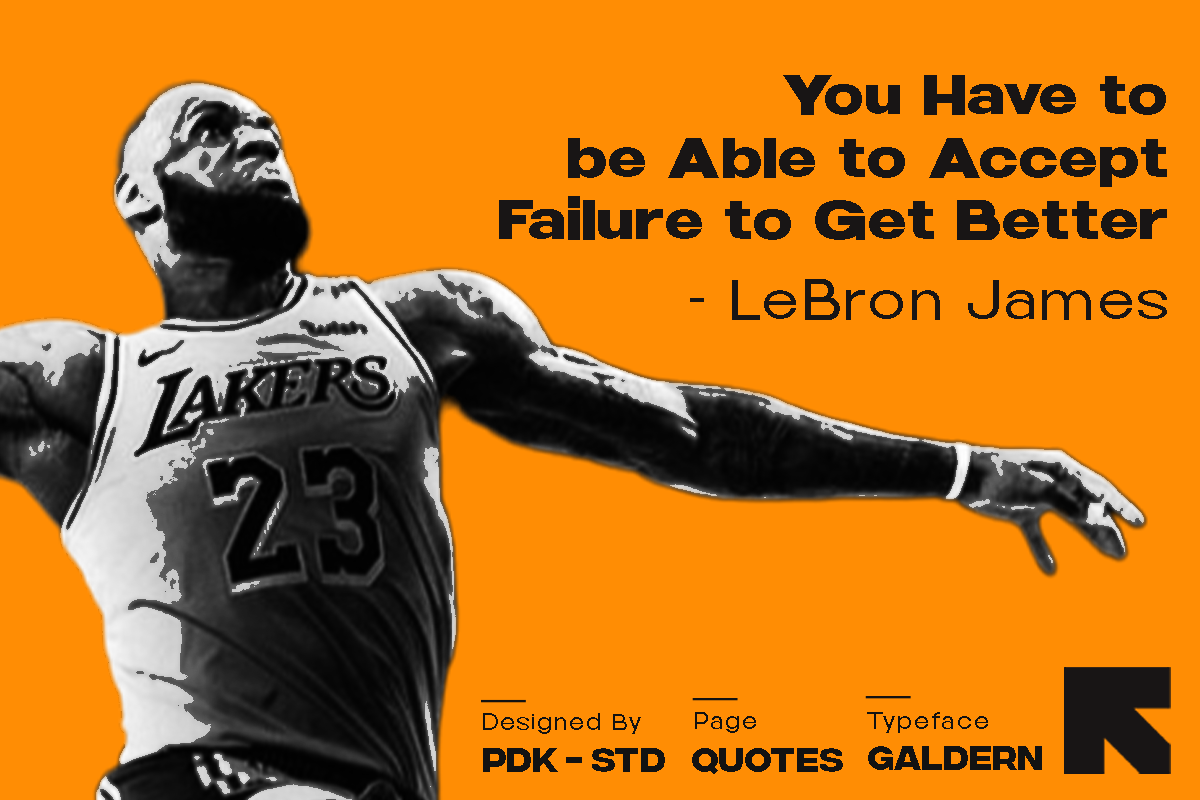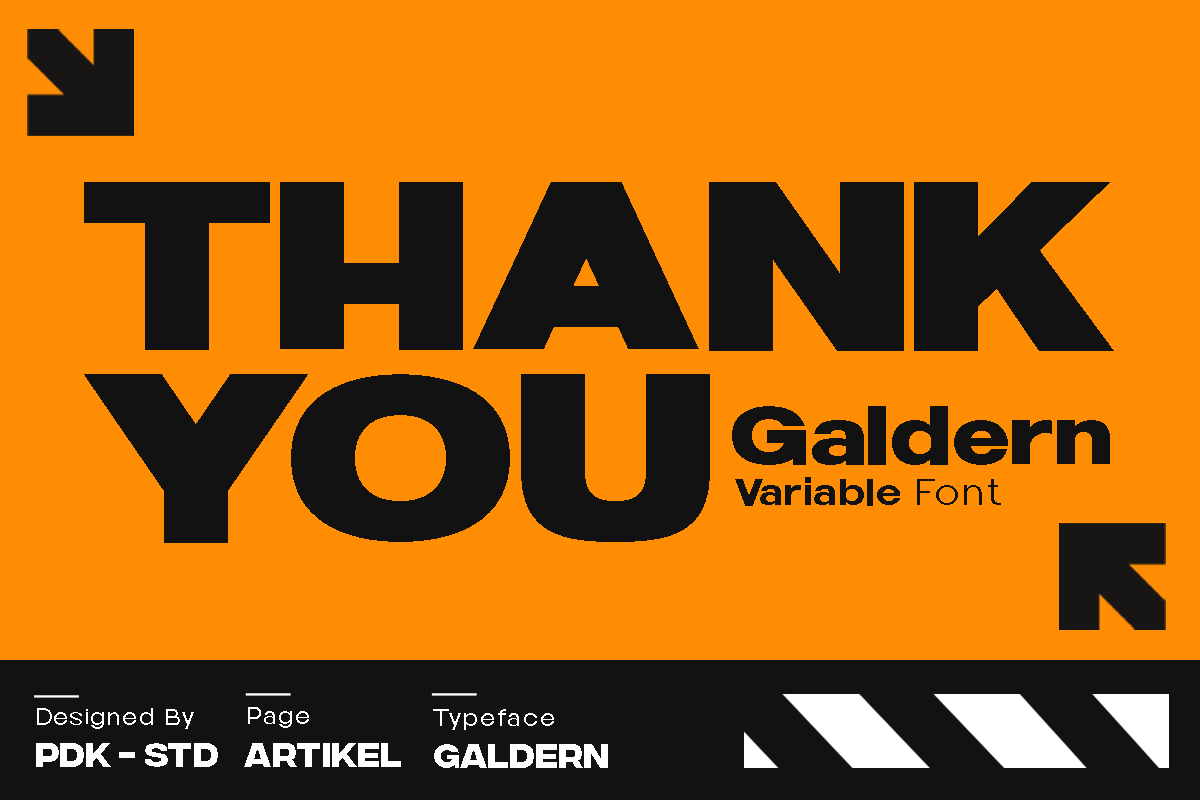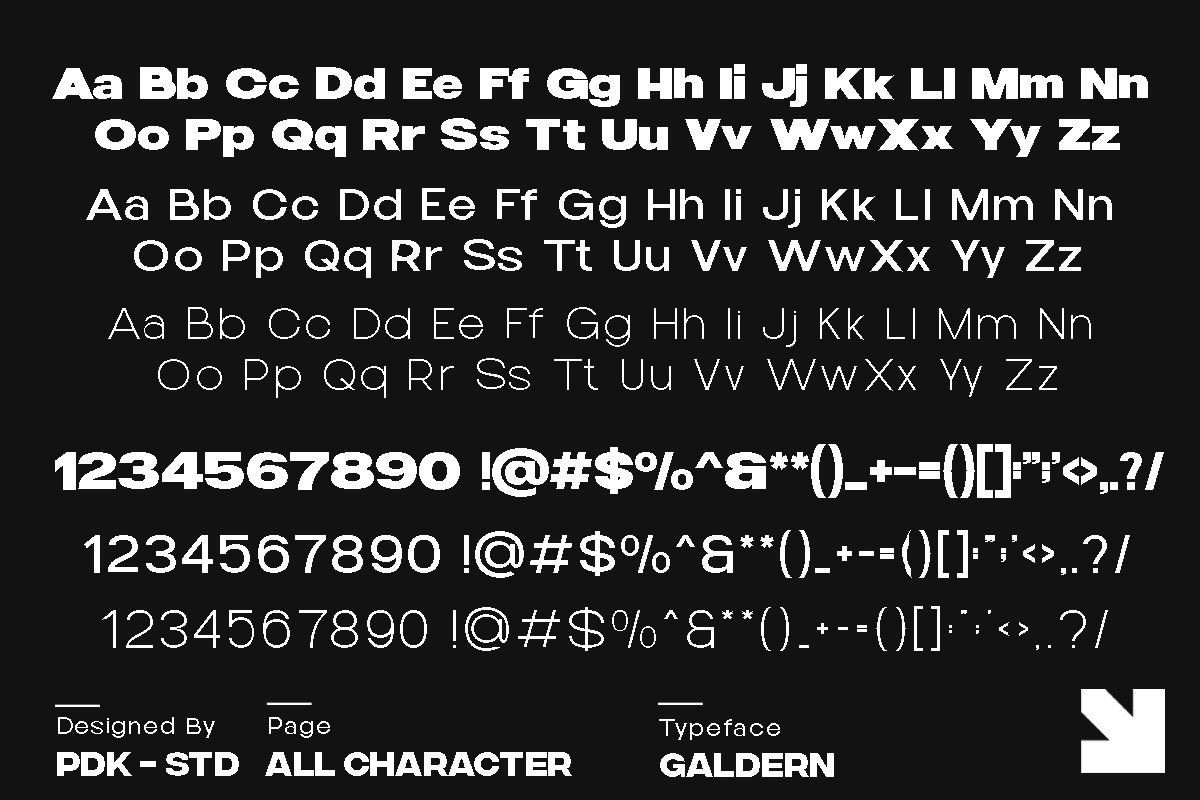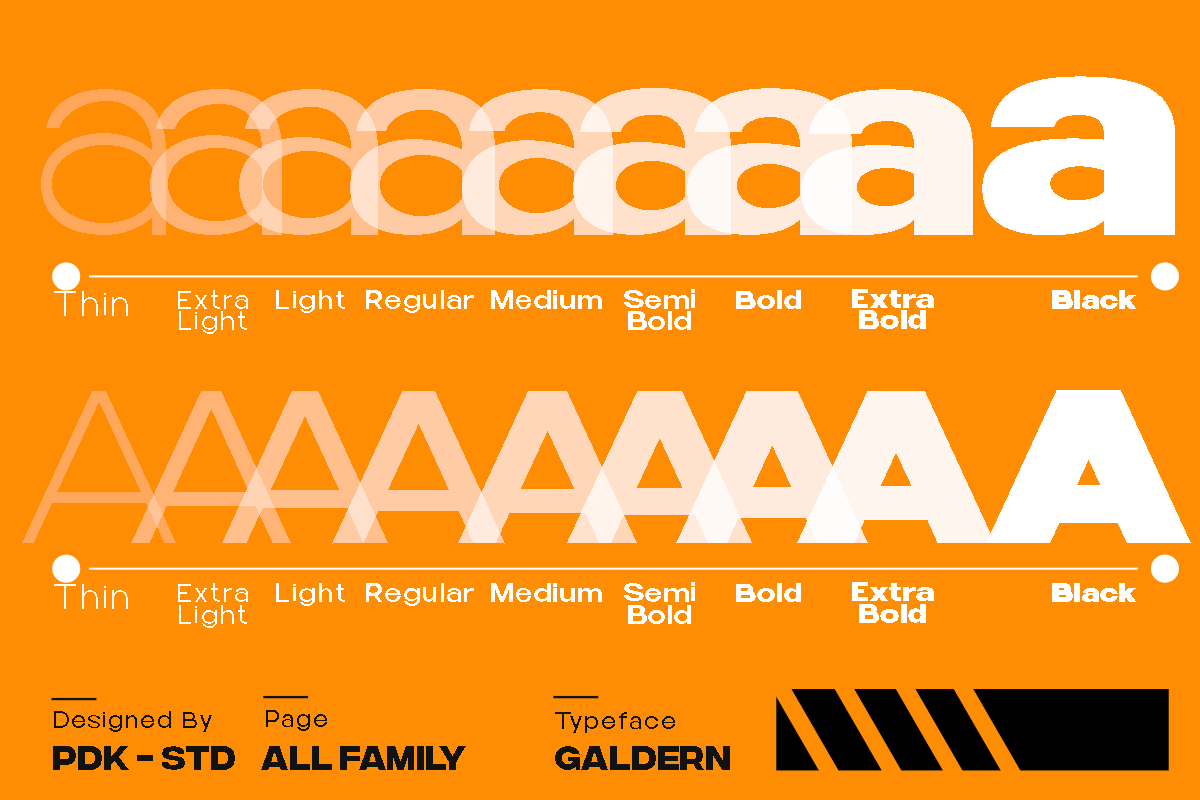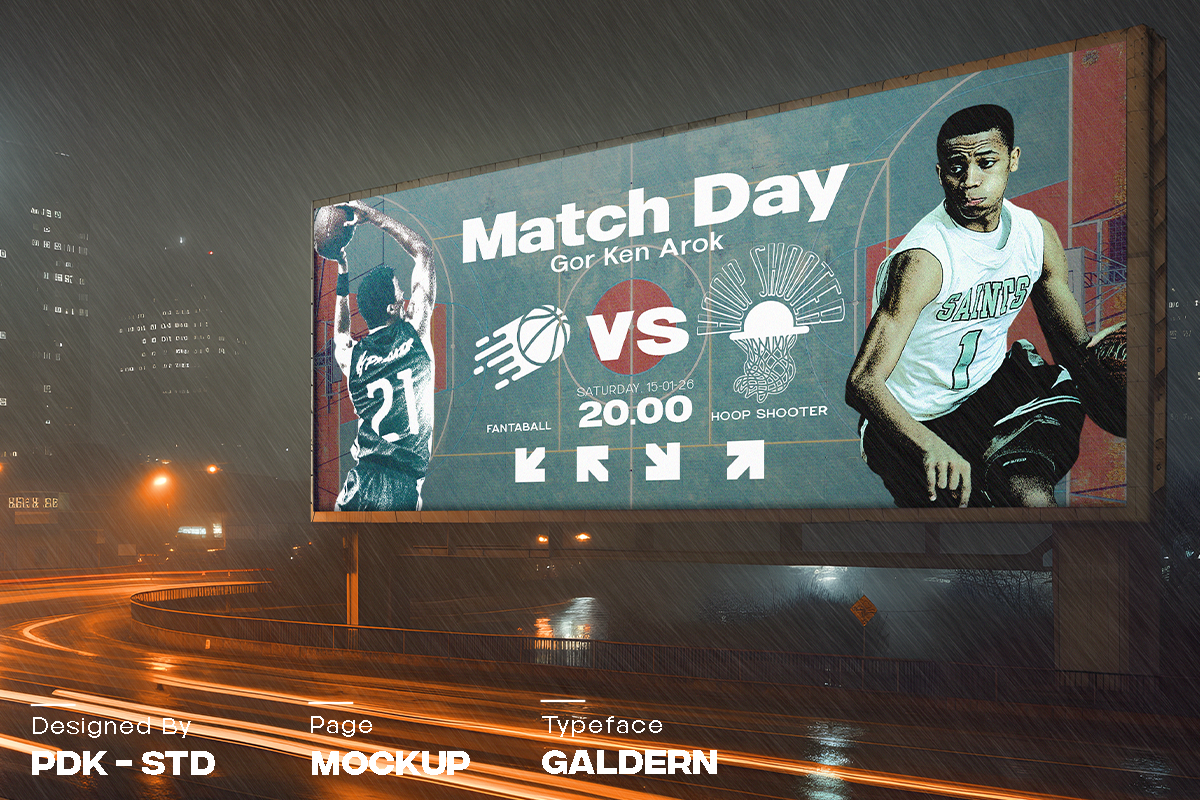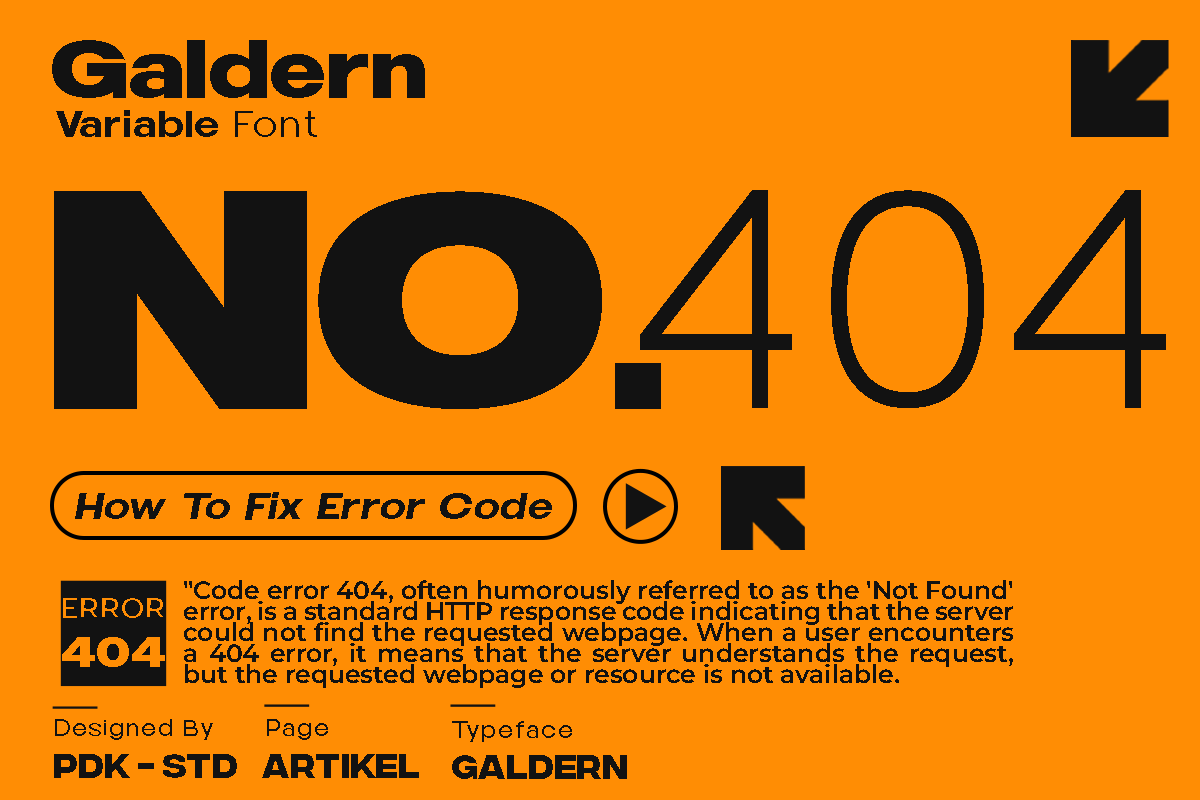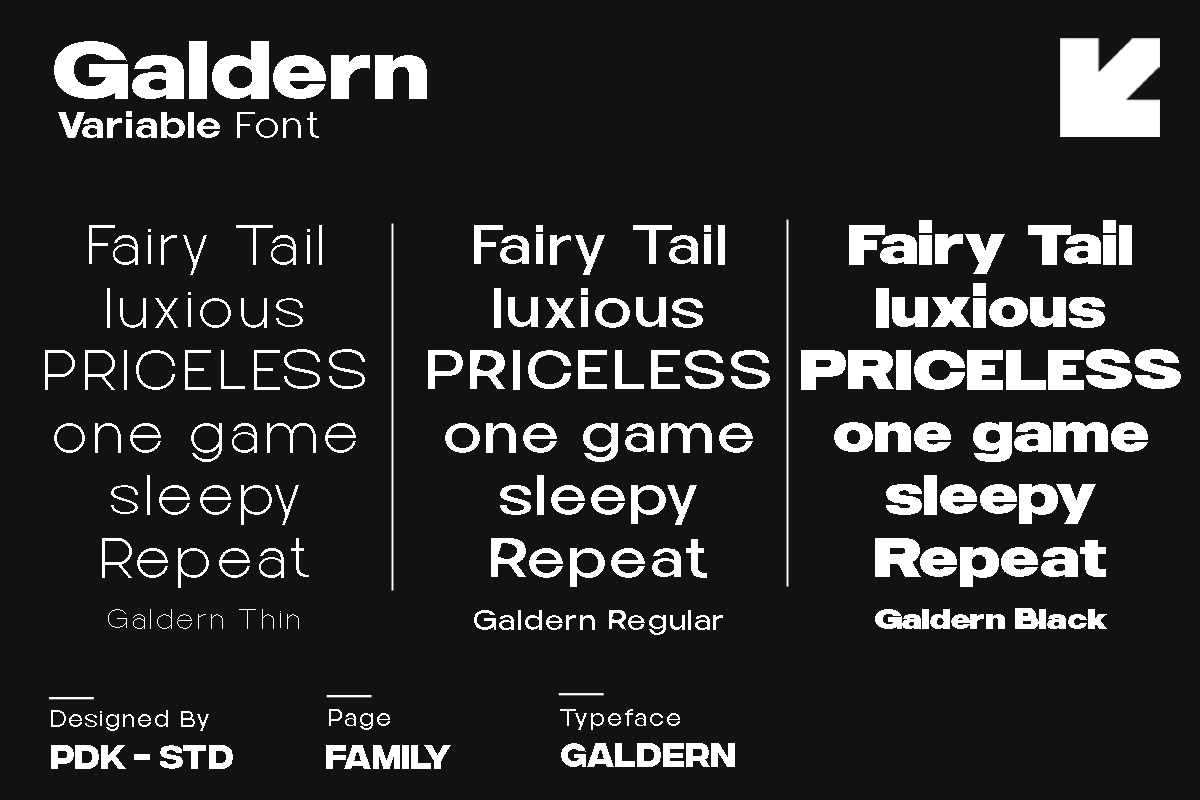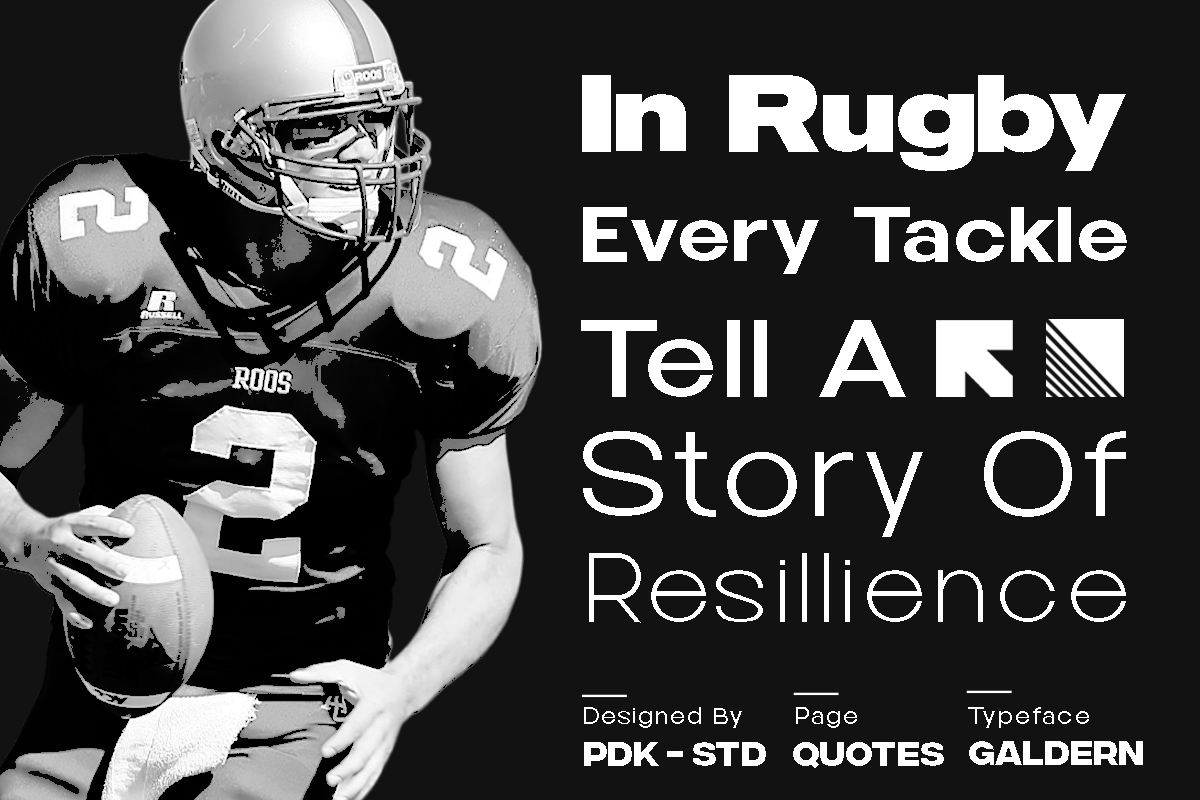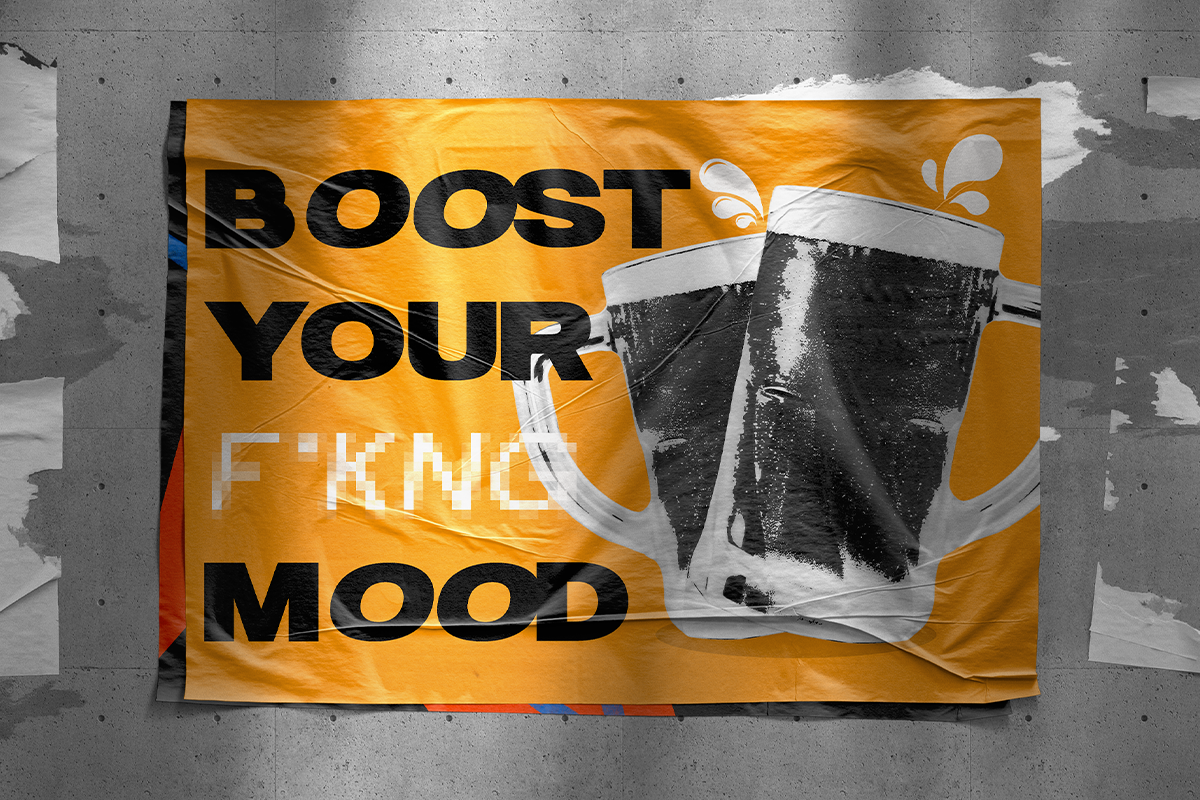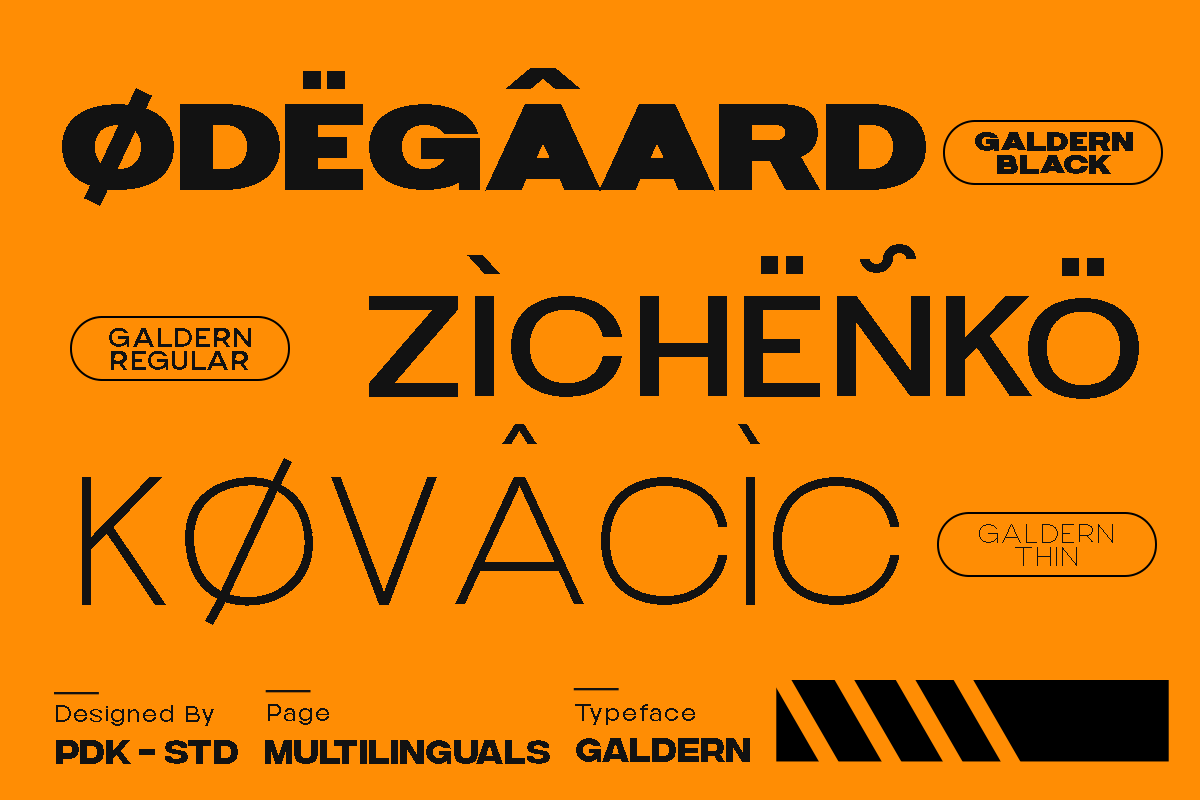
Galdern - Geometric Modern Font
Galdern is a geometric sans serif font family with unique characters for a touch of distinction. Simple yet sophisticated, this typeface design gives a clean and modern appearance while carrying some almost retro tones.
There are also stylistic alternates to help give a little different presentation when needed.